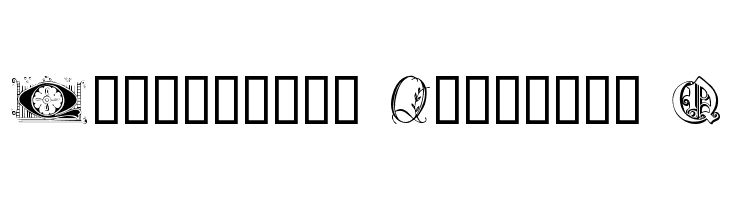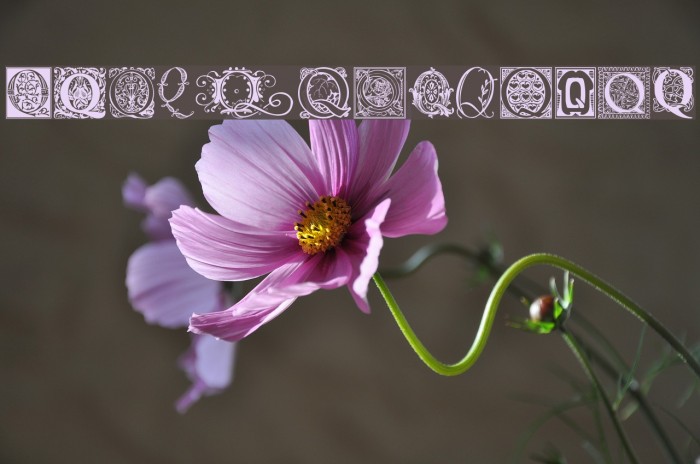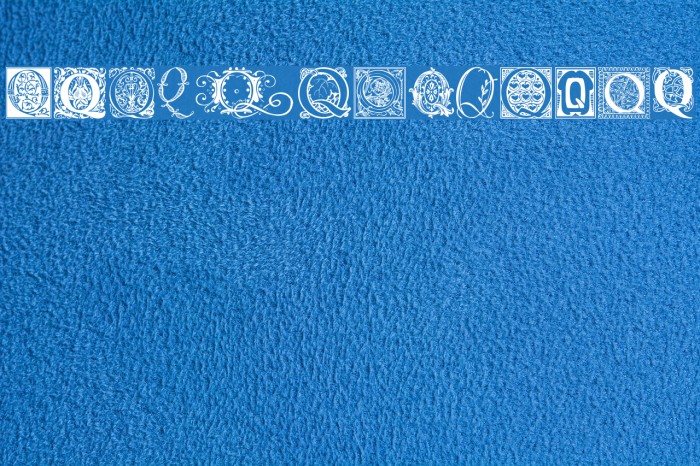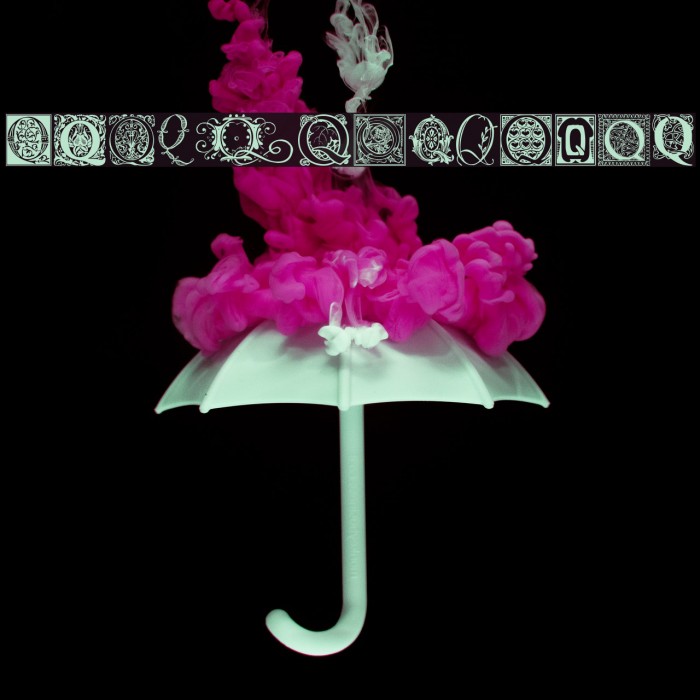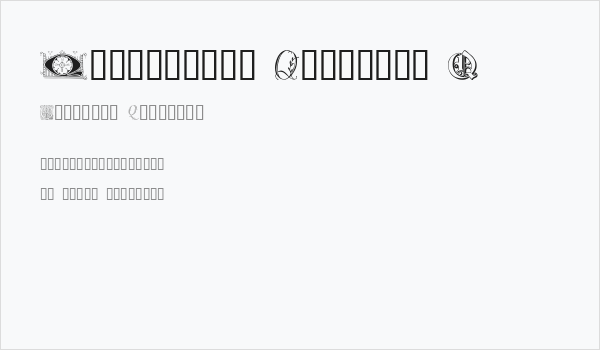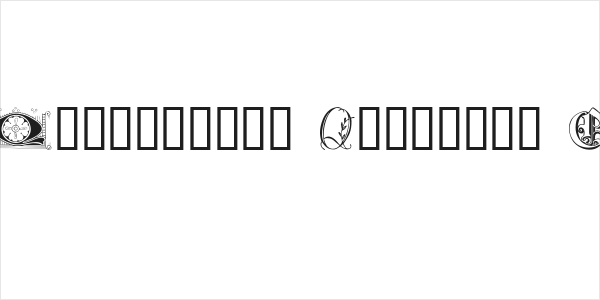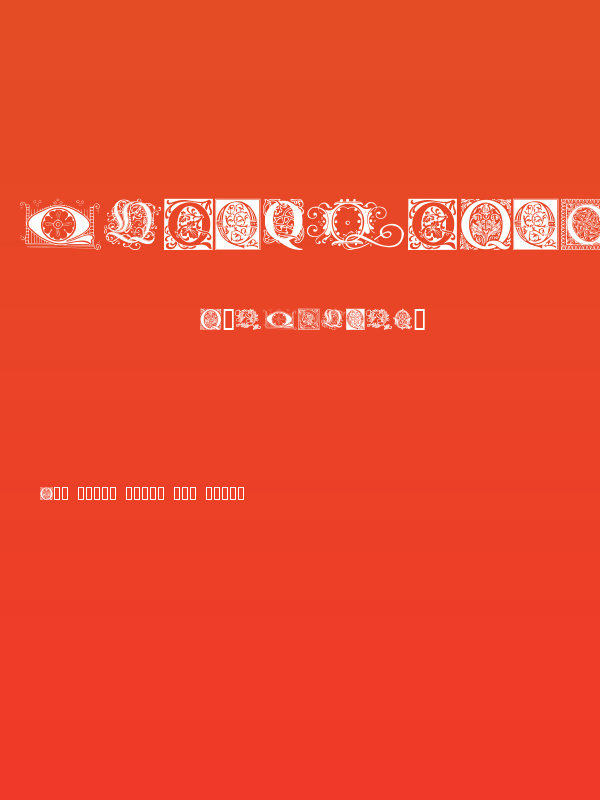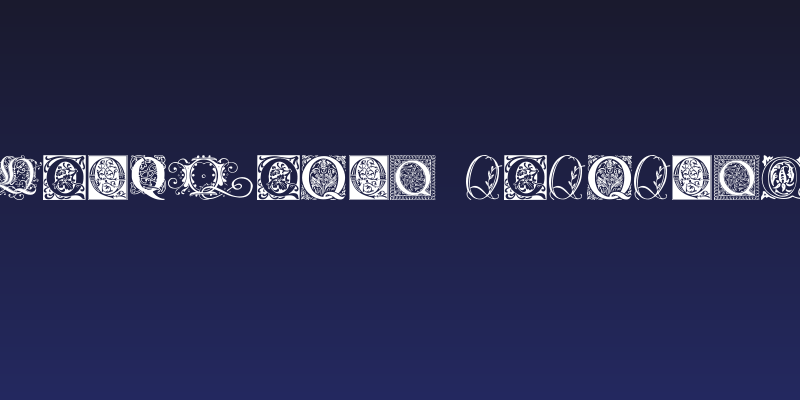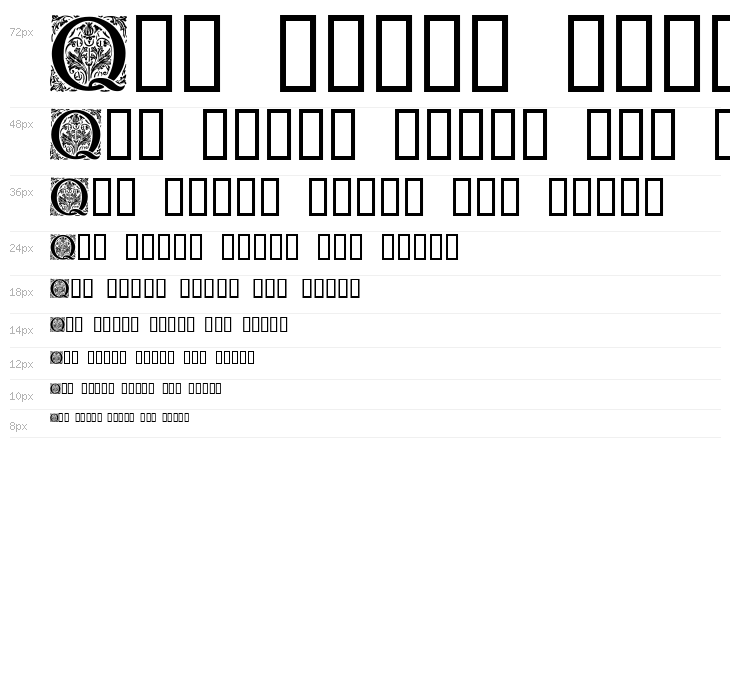
Ornamental Initials Q Font
Ornamental Initials Q Description
This font is a highly decorative and ornate style, featuring intricate designs and embellishments surrounding the letter 'Q'. Each character is enclosed within a square or circular frame, adorned with floral and abstract motifs that give it a vintage and classical appearance. The detailing is elaborate, making it suitable for projects that require a touch of elegance and historical charm. The font's artistic nature makes it stand out, with each letter being a piece of art in itself. The overall design suggests a sense of luxury and sophistication, ideal for special occasions or themes that require a regal touch.
| Use Case | Logos, Decorative headings, Invitations |
| Proposed Projects | Ideal for wedding invitations, historical themed projects, luxury branding, and decorative book covers. |